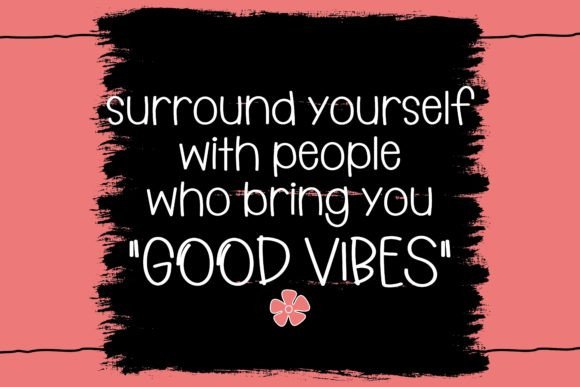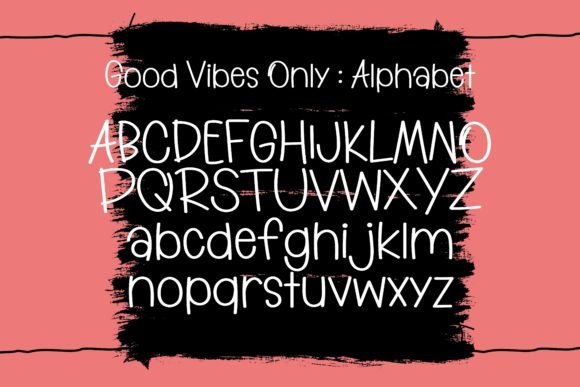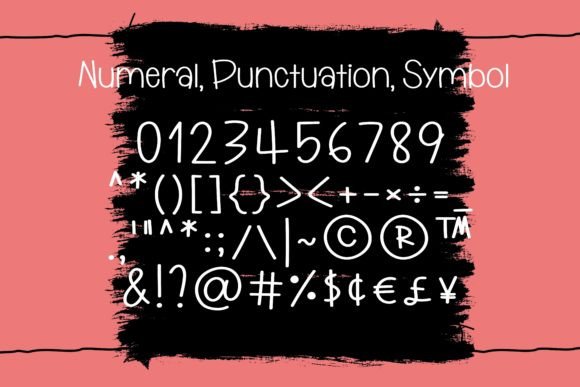
Introduction to Good Vibes Only Font
Good Vibes Only is a cute and friendly handwritten sans serif font.
Incredibly versatile, this font will look great in a wide variety of contexts .
Key Features of Good Vibes Only Font